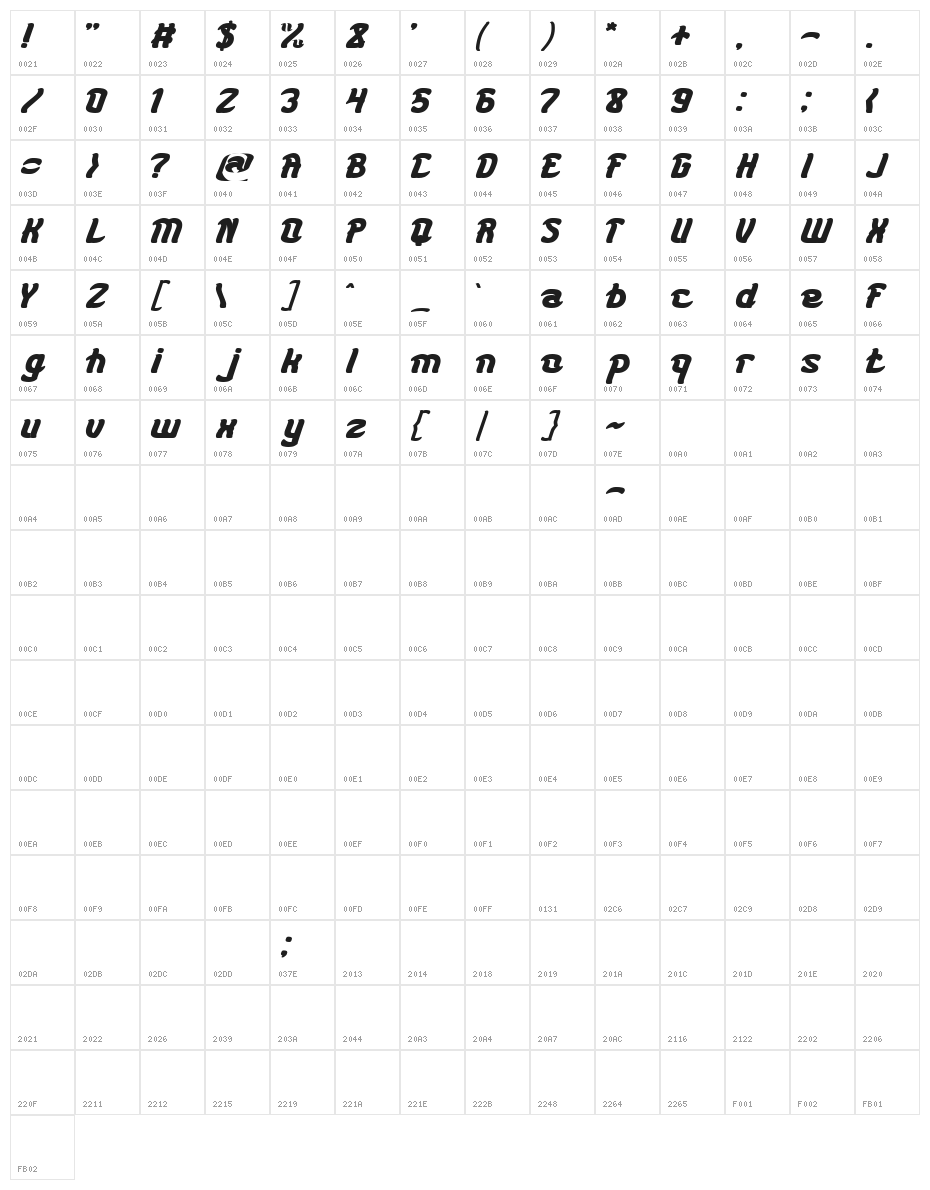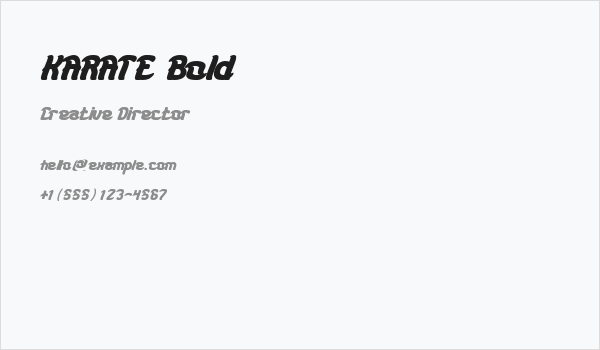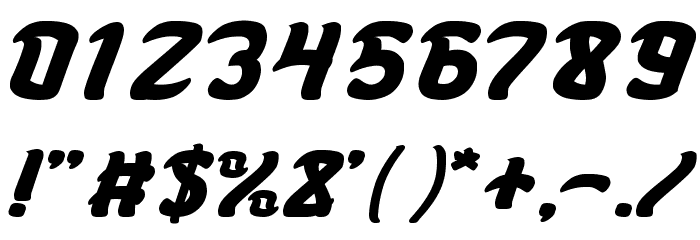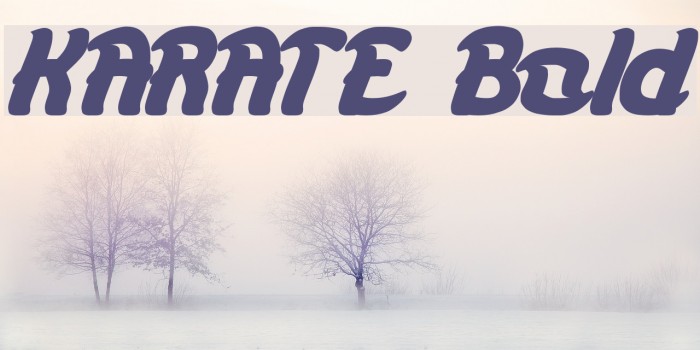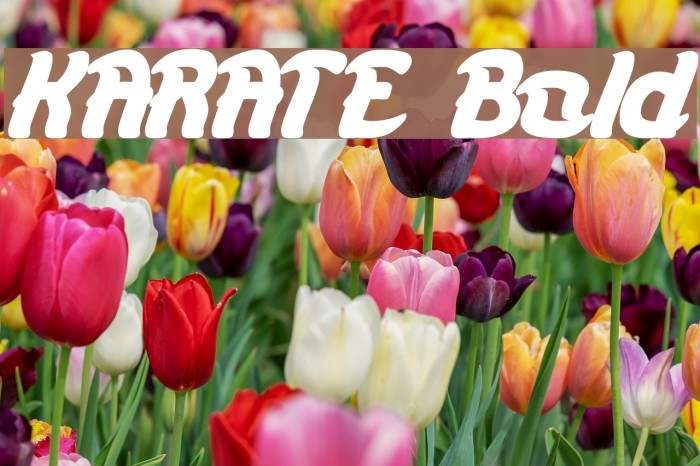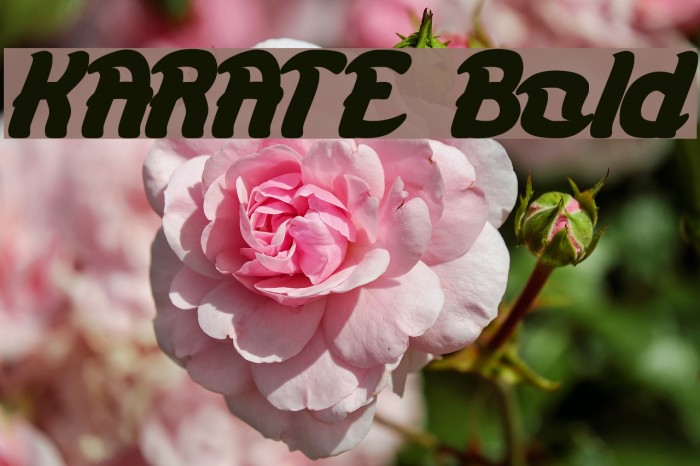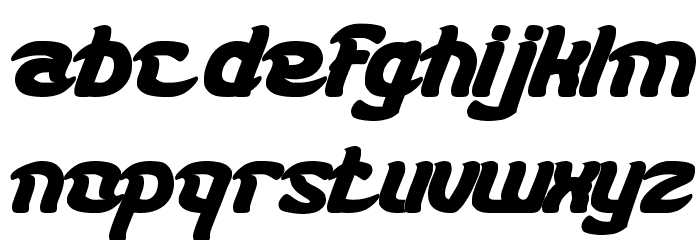
KARATE Bold Font
KARATE Bold Description
This bold and dynamic font features a strong, energetic style with thick, rounded strokes that convey a sense of movement and power. The characters are slightly slanted, adding a touch of fluidity and speed, reminiscent of brush strokes or calligraphy. The uppercase and lowercase letters maintain a consistent weight, ensuring readability while providing a unique flair. The numbers and special characters follow the same bold and expressive design, making them stand out. This font's overall appearance is both modern and playful, suitable for projects that require a bold statement.
| Proposed Projects | Ideal for sports branding, action-themed posters, dynamic logos, and energetic advertising campaigns. |